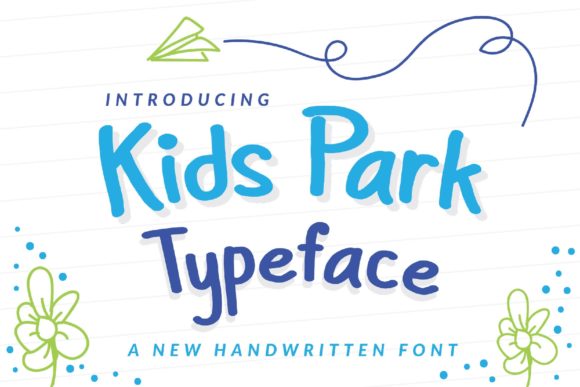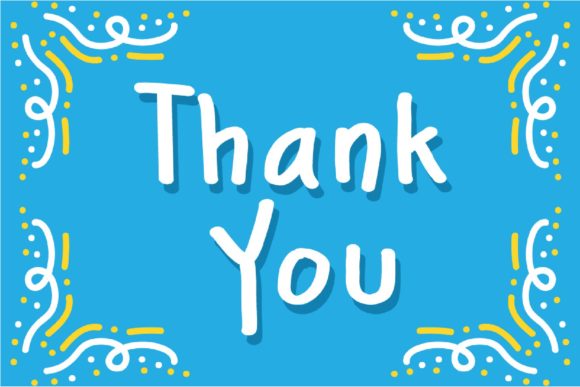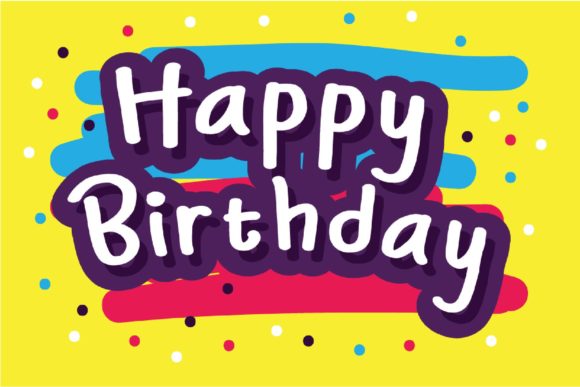
HomeScript FontsKids Park Font Script Fonts Kids Park Font FacebookXPinterestWhatsApp Kids Park Font Poster 2 Kids Park Font Poster 3 Kids Park Font Poster 4 About Kids Park Font Kids Park is the perfect font for any kids-themed designs. It will add a fun and hilarious feel to any craft! DOWNLOAD ON CREATIVE FABRICAThis font is sold and delivered by Creative Fabrica. Font Canyon may earn a commission if you buy through this link. People also explored Marnilla Signature Font Chicken Font Thanks Brother Font Olivera Font Sketch Pocket Notebook Vertical Bimba Font Devant Pro Font Wedding Font Plumero 385 0 TagsKids Park Font Previous articleAdelia FontNext articleAllington Font LEAVE A REPLY Cancel reply Comment: Please enter your comment! Name:* Please enter your name here Email:* You have entered an incorrect email address! Please enter your email address here Website: Save my name, email, and website in this browser for the next time I comment. Personal Use Free Millea Personal Use Free Read more about this font Aliqa Personal Use Free Read more about this font Theobald Personal Use Free Read more about this font Amrina Personal Use Free Read more about this font BLOG Using Fonts in Digital Marketing: Tips to Strengthen Your Brand Identity In the realm of digital marketing, every visual element plays a crucial role in shaping a brand's identity, and fonts are no exception. The... Transform Your Website: Elevate Your Typography with 7 Best Web Font Generators How to Install and Use Fonts on Windows, macOS, and Web Projects The 10 Best Handwriting Fonts to Add Personality to Your Designs